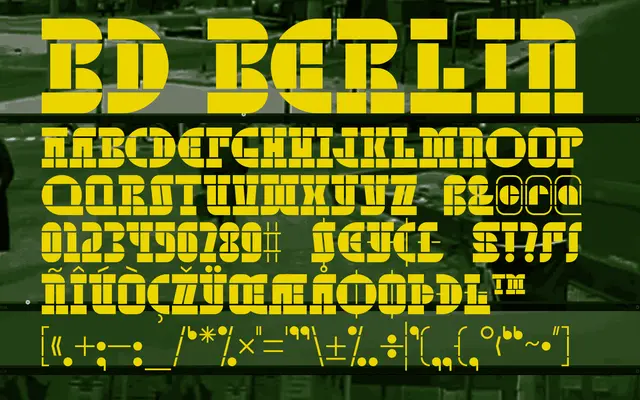
BD Berlin
A single-weight all-caps display face designed during a stay in Berlin, offering alternate lowercase glyphs and a heavy, blocky character.
Bold and blocky, BD Berlin (also released as BD Pankow) was drawn during an extended stay in Berlin and carries that city's blunt, monumental energy. It operates as an uppercase typeface with alternates mapped to the lowercase slots, giving designers some variation within a single style. Coverage spans a solid range of Latin-Extended languages including German, French, Spanish and Scandinavian scripts.
An all-caps geometric display typeface described as bold and rock-solid, with alternate lowercase characters. Its blocky, wall-like construction places it firmly in the display category rather than a functional text face.